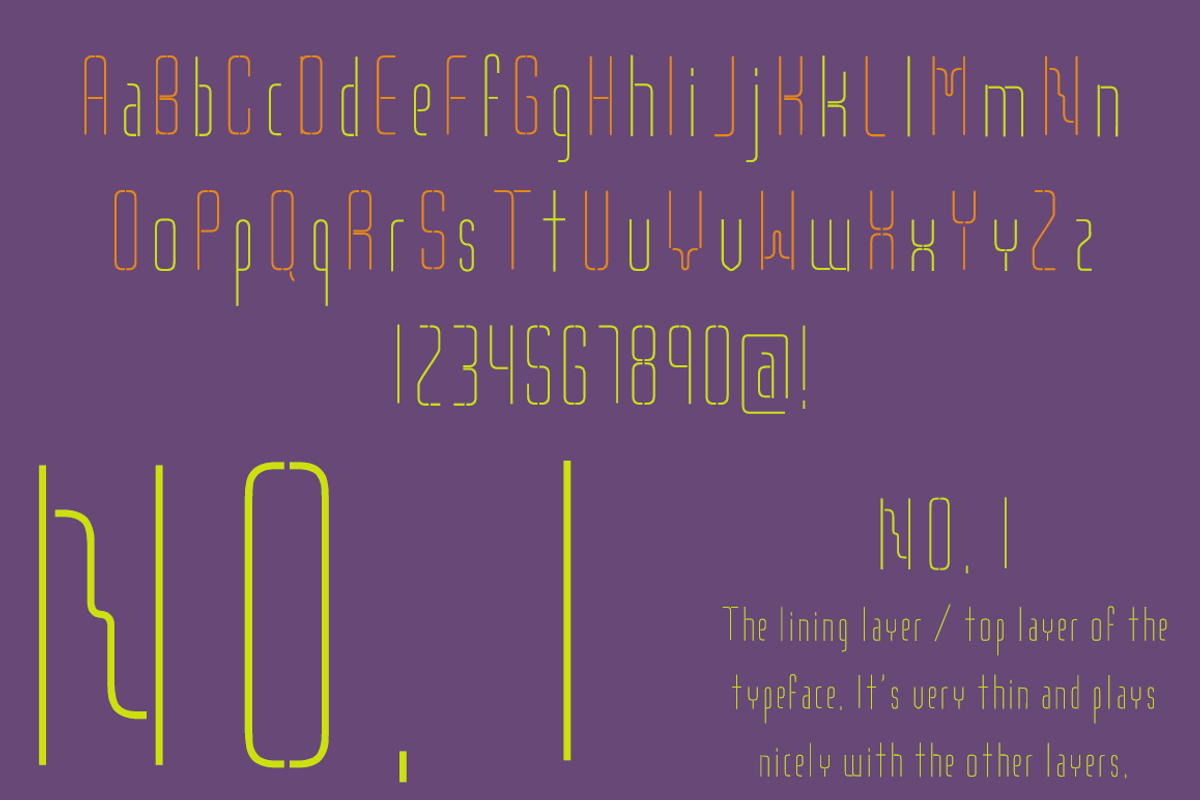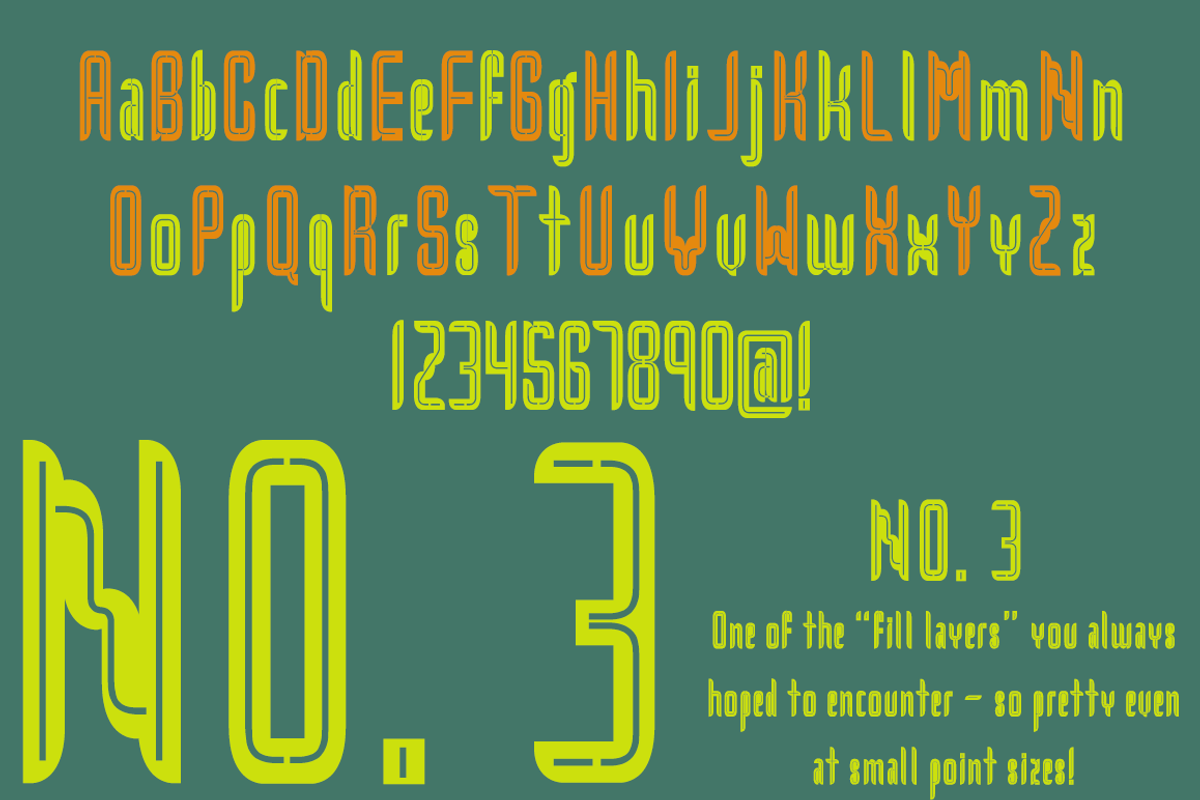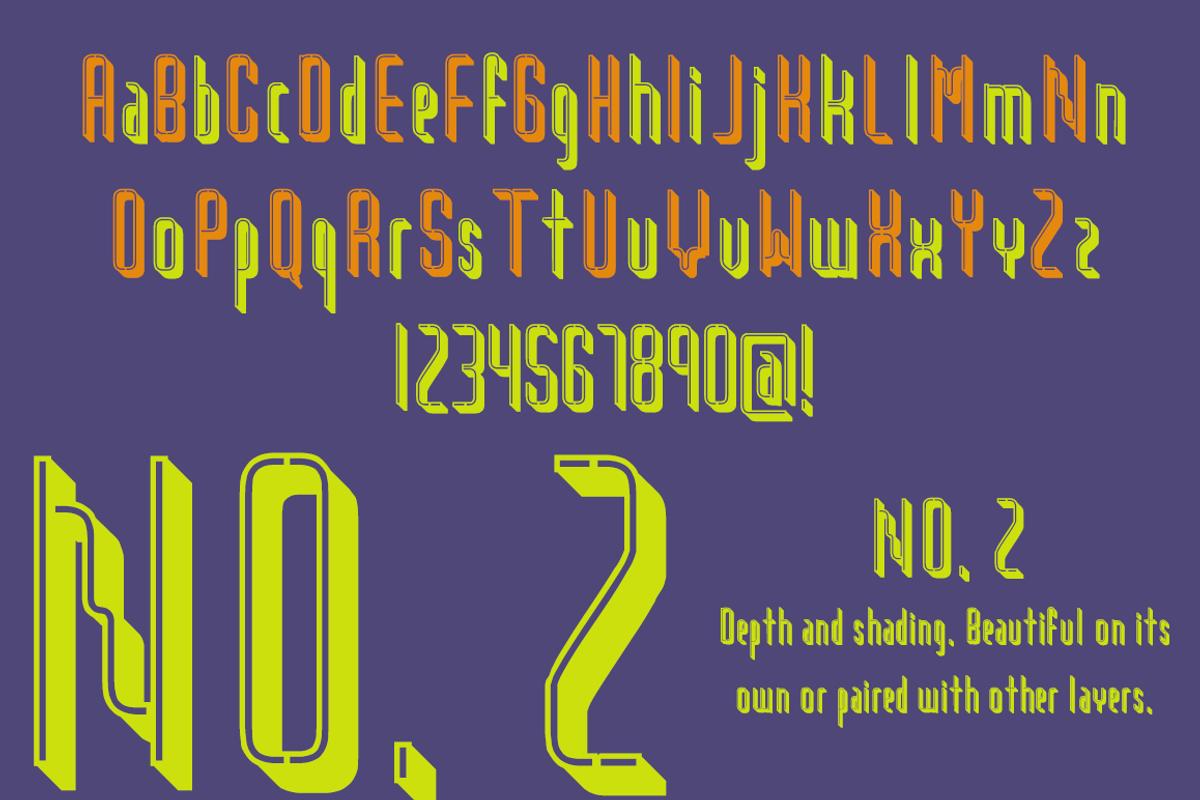
Stacked™ Eight Layer Stacking Type
Stacked™ Eight Layer Stacking Type by Baseline Fonts is a font selected for branding, posters, packaging, typography.
Why Stacked™ Eight Layer Stacking Type is worth a look
Stacked™ Eight Layer Stacking Type by Baseline Fonts fits naturally into Branding, posters, packaging, typography.